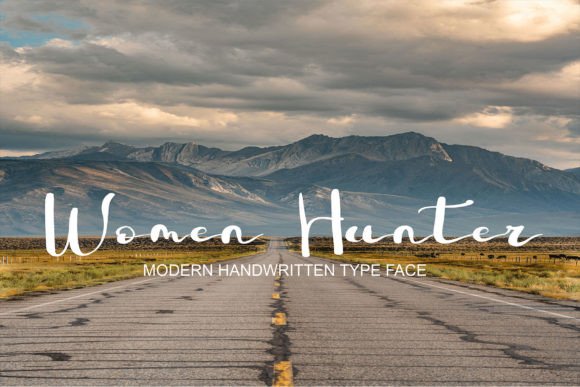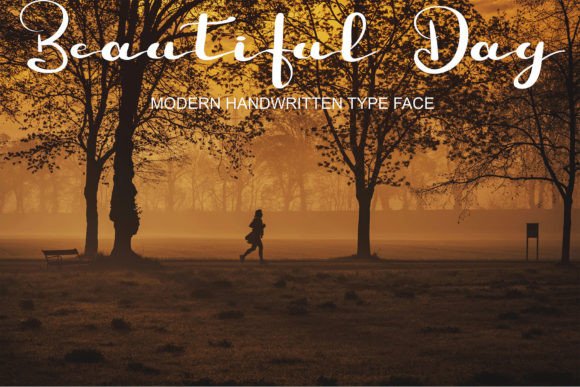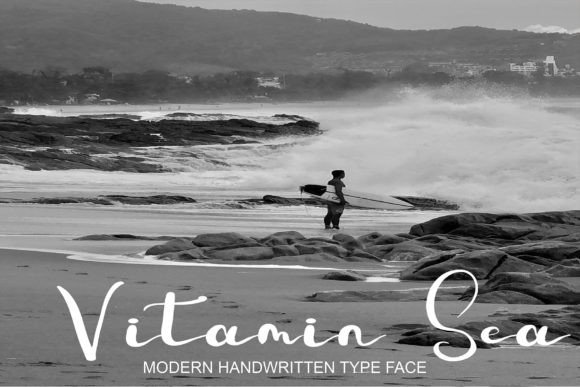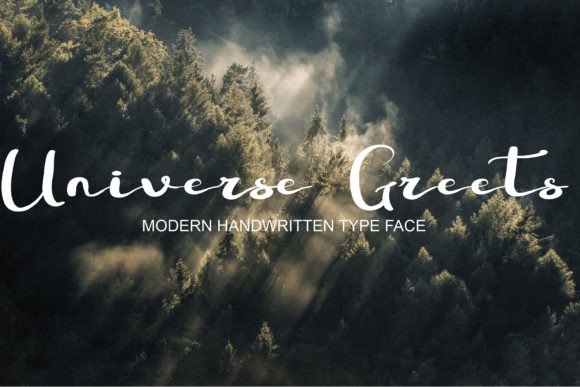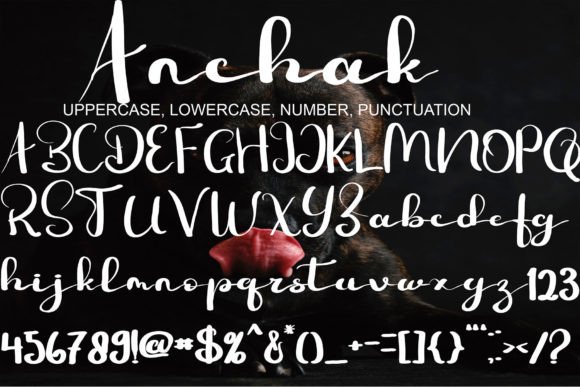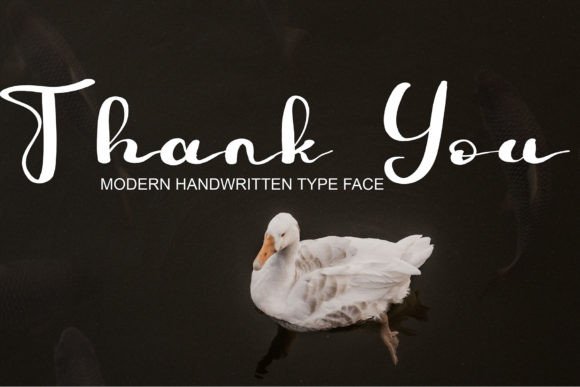
Anchak Font
About Anchak Font
“Anchak is a simple, authentic, yet stylish handwritten font that embodies versatility and charm. This font is suitable for a wide range of applications, including branding, signatures, wedding invitations, promotions, product packaging, logos, designs, and anything that requires a lovely, romantic accent.
The appeal of Anchak lies in its simplicity and authenticity, where each letter carries a genuine and stylish touch. This font becomes a versatile choice for designers seeking a font that adds a romantic and authentic accent to their creative projects.
Whether you’re creating a brand identity or crafting wedding invitations, Anchak stands out as a font that elevates the overall aesthetic. Its versatile nature allows it to seamlessly adapt to different design elements, making your creations visually appealing.
Imagine Anchak enhancing your projects, adding a simple yet stylish handwritten touch to your text. Its authenticity becomes the defining element that sets your designs apart, creating a visual experience that resonates with elegance and romance.
As you explore the nuances of Anchak, you’ll discover its potential to transform ordinary projects into visually delightful expressions. Let it be the font that brings a lovely and romantic accent to your creative vision, making your designs stand out with a simple and authentic handwritten aesthetic. With Anchak, every stroke becomes a brushstroke of charm, making it an invaluable asset for designers seeking a versatile and stylish font.”